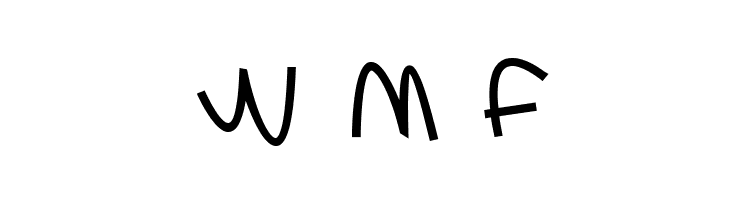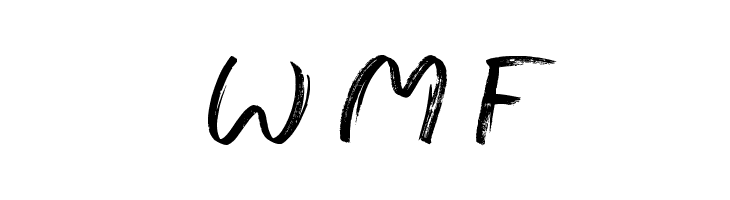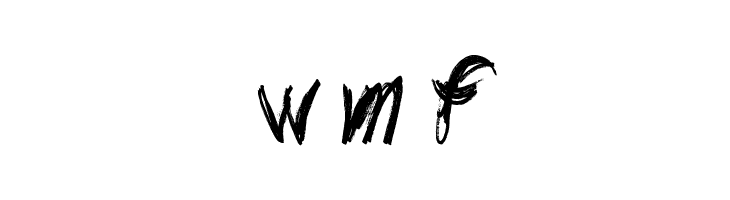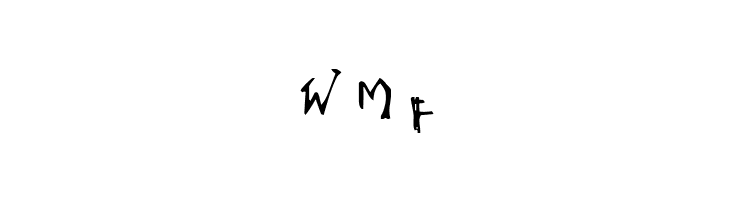
A bold, playful handwritten font with expressive strokes and a casual style.
A bold, energetic script font with sweeping strokes and dynamic flair.
A bold, expressive handwritten font with dynamic strokes and a textured appearance.
A bold, expressive handwritten font with dynamic strokes and a lively appearance.
A bold, brush-style font with dynamic, hand-painted strokes.
A bold, hand-drawn font with a raw and expressive style.
A bold, expressive font with swirling, decorative strokes and a playful, artistic flair.
A fluid and expressive calligraphic font inspired by traditional Japanese brushwork.
A bold, expressive handwritten font with dynamic brush-like strokes.
A bold, spiky, ink-splattered decorative font with a raw, expressive style.
A bold, brush-style font with expressive, hand-painted strokes.
A bold, hand-drawn font with expressive, uneven strokes.
A bold, expressive handwritten font with dynamic strokes and artistic flair.
A highly expressive, hand-drawn font with erratic and playful letterforms.
A dynamic and expressive handwritten font with irregular strokes.
A bold, expressive handwritten font with dynamic strokes.
A bold, expressive handwritten font with dynamic strokes and playful character.